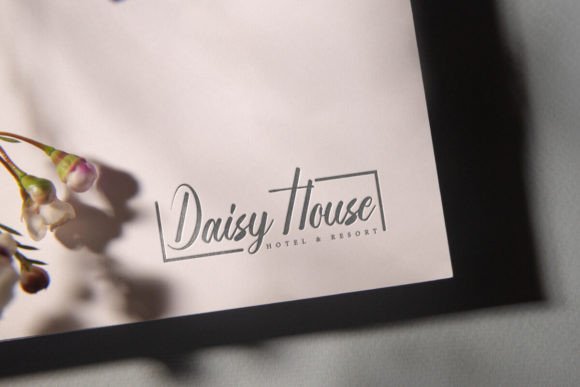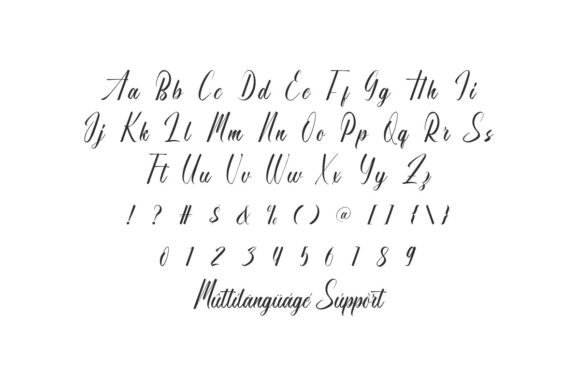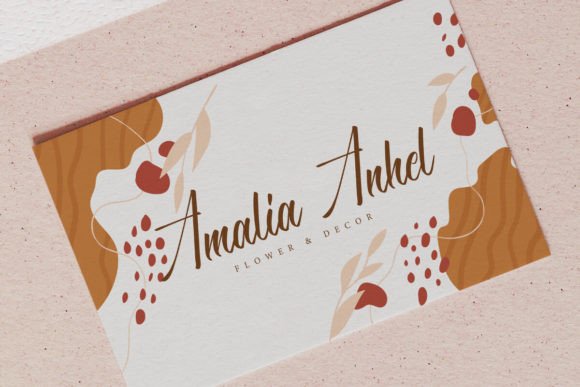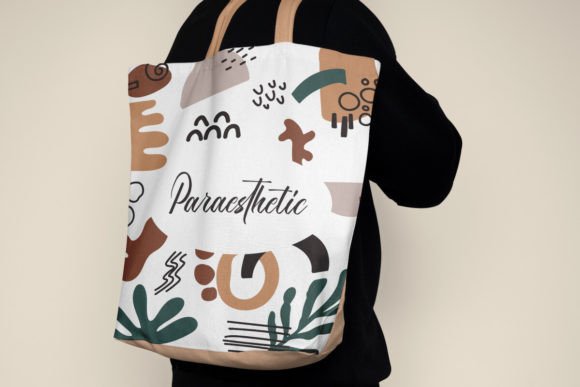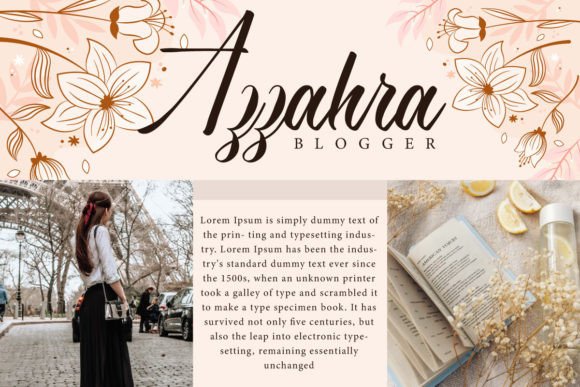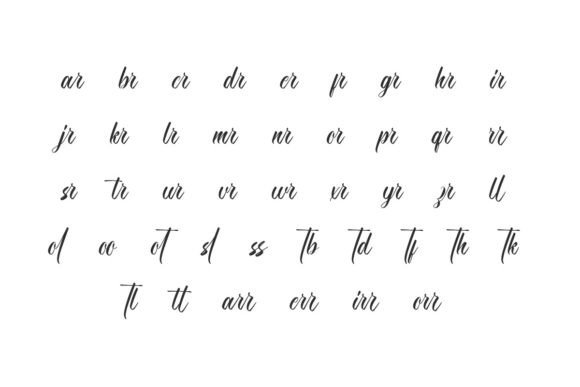
Introduction to Paraesthetic Font Font
Fonts play a crucial role in design, and the Paraesthetic Font font is a typeface that brings both character and versatility to any project. Whether you’re working on a branding project, a website, or a print design, the Paraesthetic Font font offers a unique style that can elevate your work.
Paraesthetic is a beautiful calligraphy script font with stunning looks.
When you look at this font, you will feel the beauty that wafts like flower petals in the wind This font will be suitable for many industries, such as advertisement, art, café, hotel and resort, fashion, florist, handicrafts, jewelry, perfume, printing, publishing, skincare, wedding organizer, and more.
Key Features of Paraesthetic Font Font
• ✅ High-quality typeface designed for professional use
• ✅ Includes a wide range of glyphs and characters
• ✅ Ideal for logos, branding, websites, and print
Why Choose Paraesthetic Font Font?
The Paraesthetic Font font is more than just a typeface – it’s a design tool that helps you communicate your message with style and clarity. Its unique character set and versatile design make it suitable for a wide range of applications, from elegant invitations to bold headlines.
With its carefully crafted letterforms and balanced proportions, the Paraesthetic Font font ensures readability and visual appeal across all mediums.
What makes Paraesthetic Font font special?
The Paraesthetic Font font stands out with its unique design, exceptional readability, and versatility across various design applications.